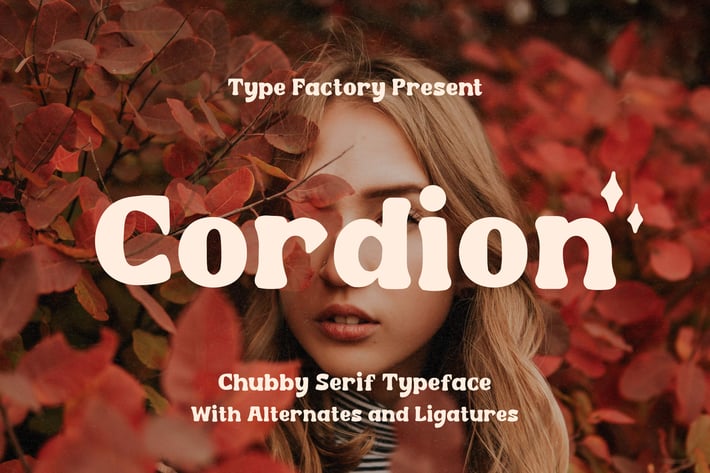
Cordion - Chubby Serif Typeface
Cordion is inspired by classic typography and brings its own unique style to any design project.
This fantastic serif font is best suited for headlines, web, print, moving images, magazine, branding, or anything else.